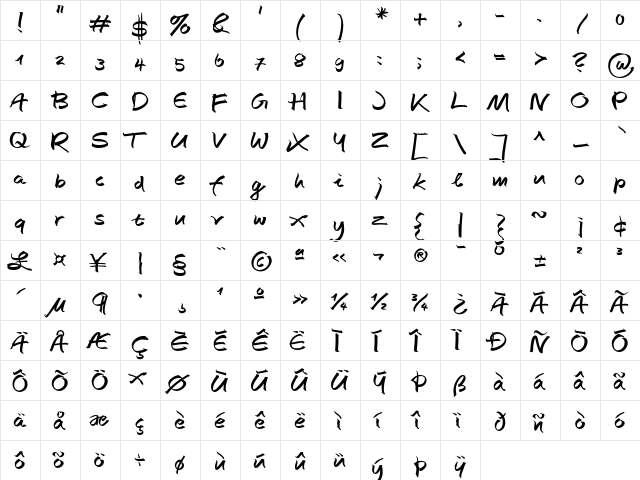
AutographScriptEF BoldAlt
Design Context for AutographScriptEF Typeface
AutographScriptEF brings a calligraphic fluidity to the page — its connecting strokes and expressive curves give it an unmistakably human quality. The heavy weight commands attention and anchors typographic hierarchies.
Font Pairing: Combine AutographScriptEF with a simple geometric sans for maximum contrast — the tension between flowing curves and clean structure is a classic typographic pairing.
Pro Tip: Use AutographScriptEF for short runs of text — names, titles, or taglines. Extended body copy in script faces tires the eye quickly.